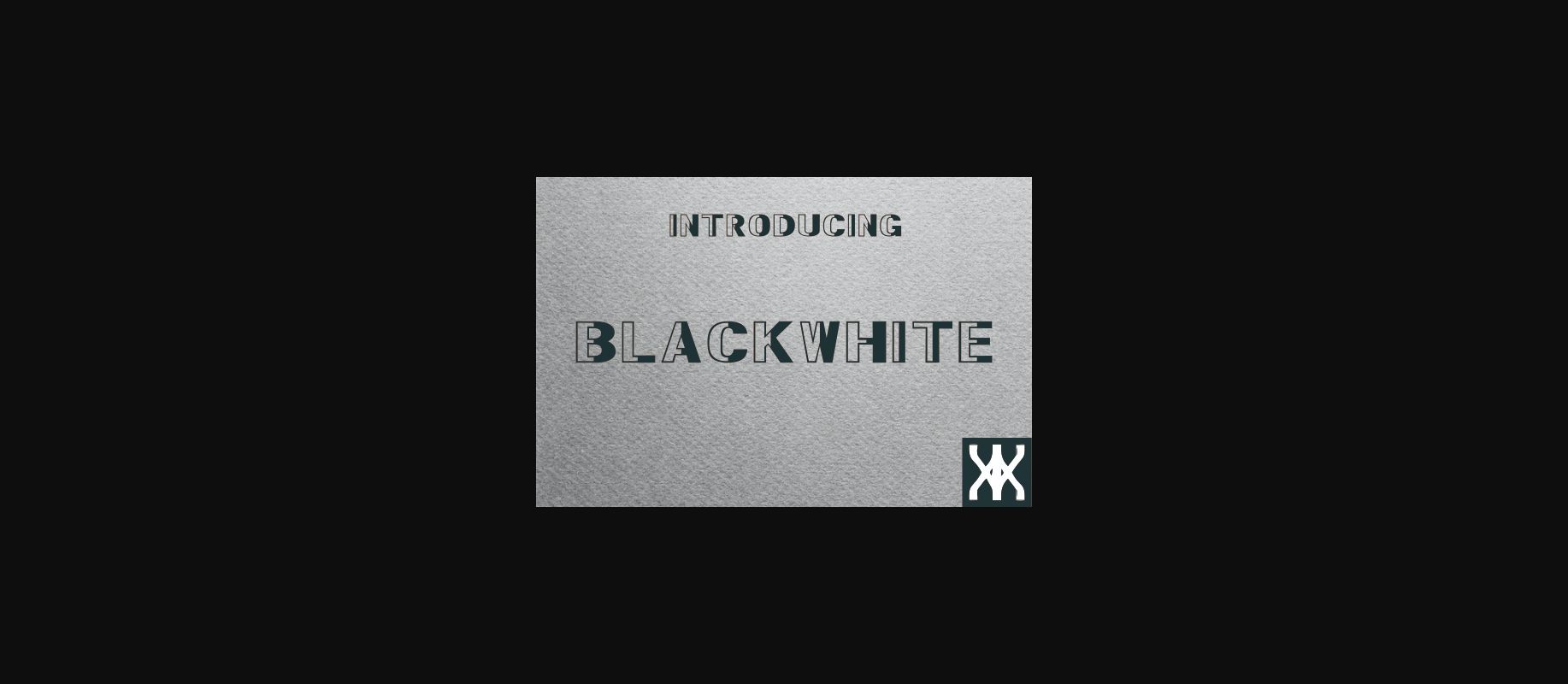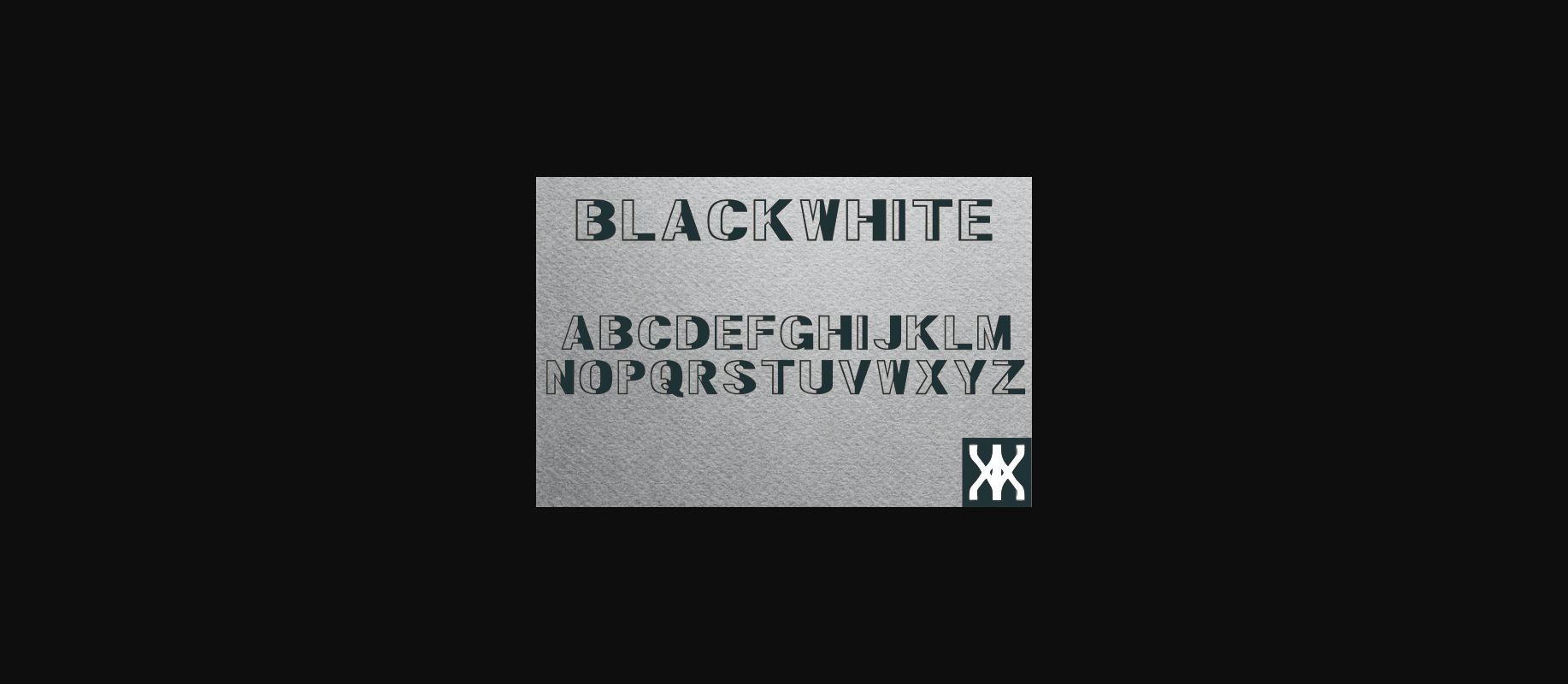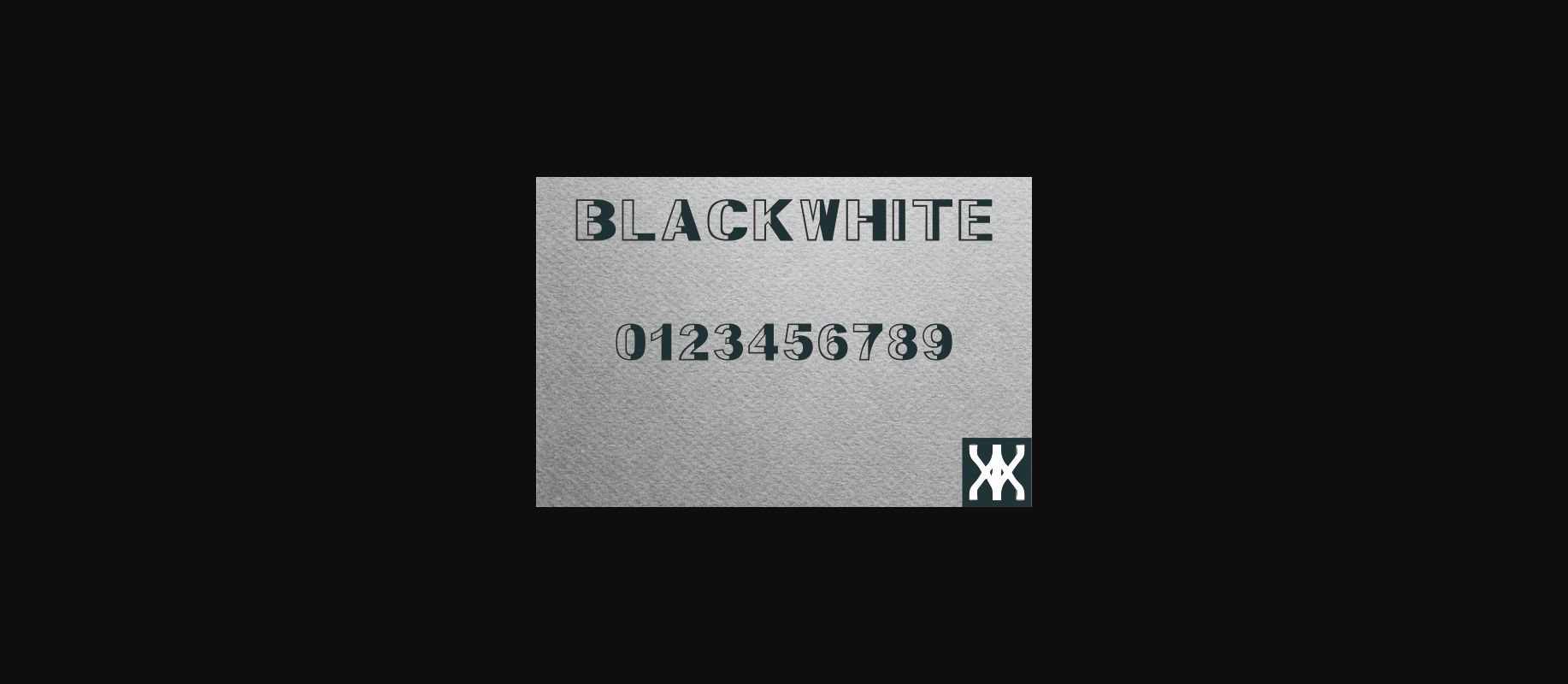
HomeDecorative FontsBlackWhite Font Decorative Fonts BlackWhite Font FacebookXPinterestWhatsApp 1 of 4 About BlackWhite Font BlackWhite is cool and decorative font with a bold feel. It will add a unique touch to any design project. DOWNLOAD NOW People also explored Yorkten Winter Spirit Font Wow Quicked Font Blocky Monogram Font Bold Script Font Bundle Vol 4 Damaru Font Mustang Font Samila Font Mf Paw Prints Font 275 0 TagsBlackWhiteBlackwhite Font Previous articleFocus FontNext articleQlimax Font LEAVE A REPLY Cancel reply Comment: Please enter your comment! Name:* Please enter your name here Email:* You have entered an incorrect email address! Please enter your email address here Website: Save my name, email, and website in this browser for the next time I comment. Personal Use Free A New Nattyla Personal Use Free Read more about this font Omellia Personal Use Free Read more about this font City Tour Personal Use Free Read more about this font Bigstone Personal Use Free Read more about this font BLOG Top 7 Google Fonts Alternatives for Faster and Privacy-Friendly Web Design (2025) Top 7 Google Fonts Alternatives for Faster and Privacy-Friendly Web Design (2025) When it comes to web typography, Google Fonts has long been the go-to... Free vs Paid Fonts: Why Investing in Premium Fonts Is Worth It The 10 Best Handwriting Fonts to Add Personality to Your Designs How to Cut Any Font on Cricut: Convert a Font to SVG (Free)